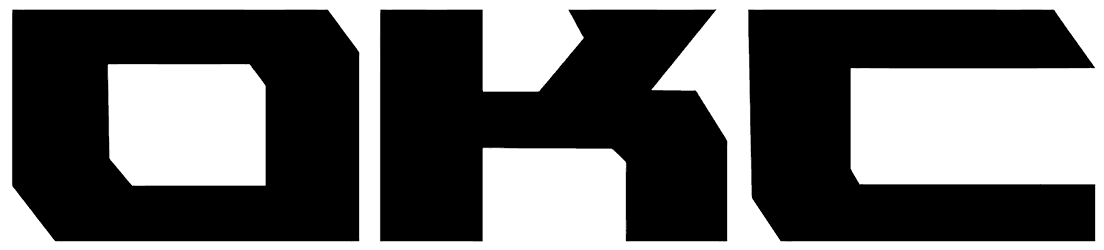
OKC is a member of square fonts inspired by geometric and futuristic elements. For this reason, it can present itself as a modern design and create a special surprise for your innovative science fiction projects.
The round cube cuts and bold designs of this font are very suitable for all kinds of art projects with an imaginative vision. This futuristic font does not include lowercase letters, so it works very well for writing newspaper headlines and industrial logos.